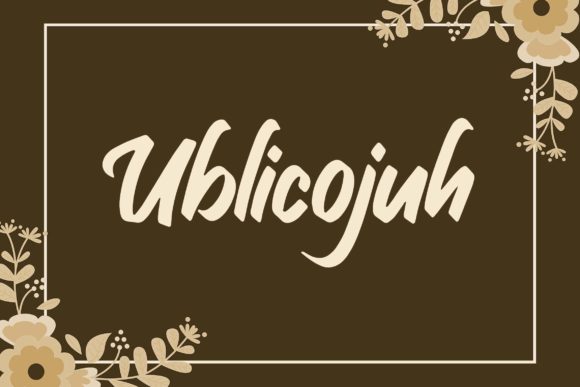
Welcome to the realm of Ublicojuh, a script font that dances with elegance and flair, ready to transform your fashion blog into a captivating symphony of style. Step into a world where words become art, and your blog transforms into a visual masterpiece.
Ublicojuh is a font born from the love of fashion, a font that understands the language of vogue and knows how to translate it into typographic brilliance. Each letter dances with a graceful poise, elongated with a touch of playful flair, mirroring the fluidity of a fashion show. Its italicized form adds a touch of dynamism, capturing the ever-evolving nature of the fashion industry.
With Ublicojuh as your digital paintbrush, paint the canvas of your fashion blog with a palette of creativity. Let the curves of Ublicojuh's letters mimic the drapes of a flowing gown, the sharp angles accentuate the boldness of a statement piece, and the delicate serifs add a touch of sophistication to your words.
Ublicojuh is more than just a font; it's a fashion statement in itself. It's a font that understands the power of visuals, the importance of making a lasting impression, and the art of standing out in a crowded digital world. With Ublicojuh, your fashion blog won't just be a collection of words; it will be a visual masterpiece that speaks volumes about your unique style and impeccable taste.
This font isn't merely a tool; it's an extension of your creative vision, a partner in your fashion storytelling. Ublicojuh is not just a font; it's a fashion-forward font that takes your blog from ordinary to extraordinary, from mundane to magnificent.
Don't let your fashion blog be confined to the ordinary; embrace the captivating charm of Ublicojuh and watch your words blossom into a symphony of style. Ublicojuh is the perfect font for fashion enthusiasts, bloggers, and anyone who wants to infuse their digital space with a touch of haute couture.